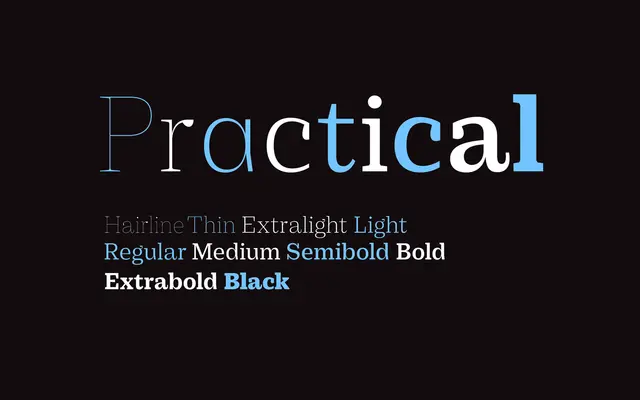
Practical Serif
A workhorse serif spanning ten weights from Hairline to Black, each with a matching italic, covering extended Latin for broad typographic use.
Ten weights running from Hairline through to Black give this family considerable range for both text and display settings. Each weight carries a matching italic, and the glyph set covers Latin Extended-A and -B along with a suite of OpenType features including oldstyle figures, stylistic alternates and standard ligatures. The alternates panel includes options for single-storey a and g, an alternate ampersand and case-sensitive forms, suggesting attention to typographic detail.
The name and broad weight range from Hairline to Black, paired with italic companions throughout, suggest a workhorse contemporary serif designed for general-purpose text and display use rather than a specific historical revival.